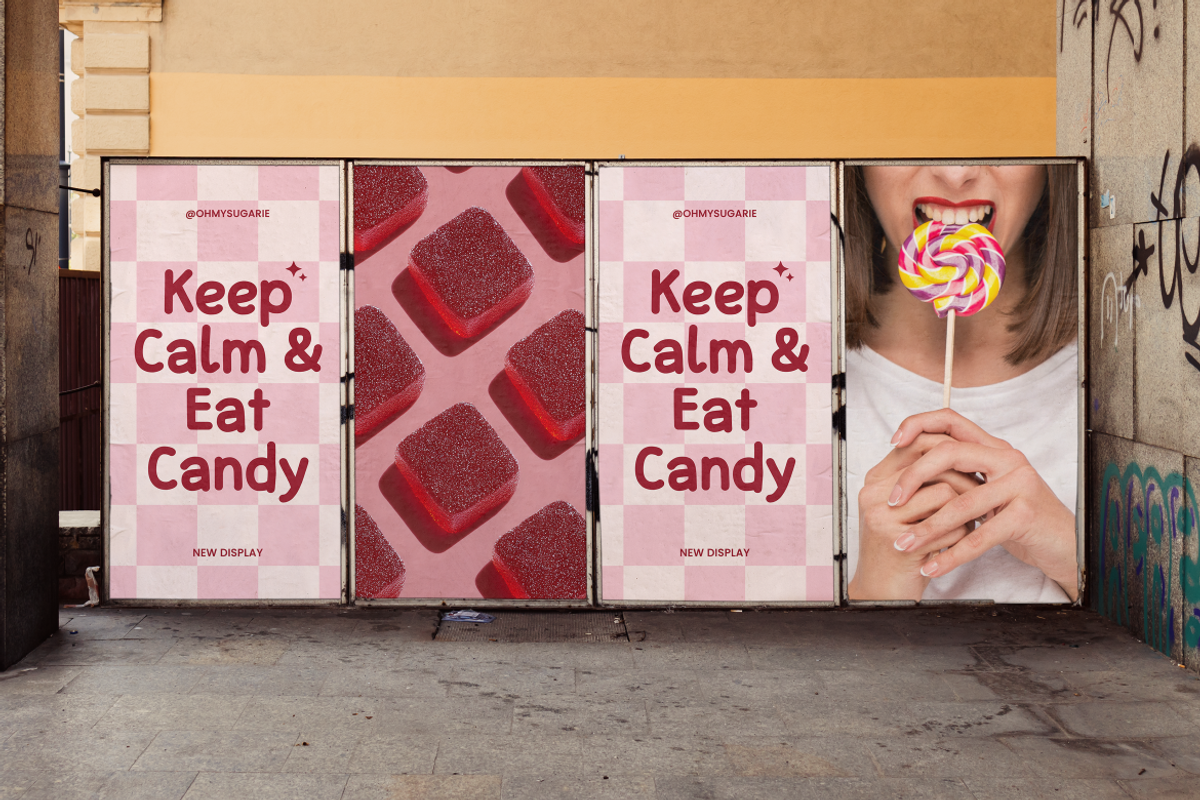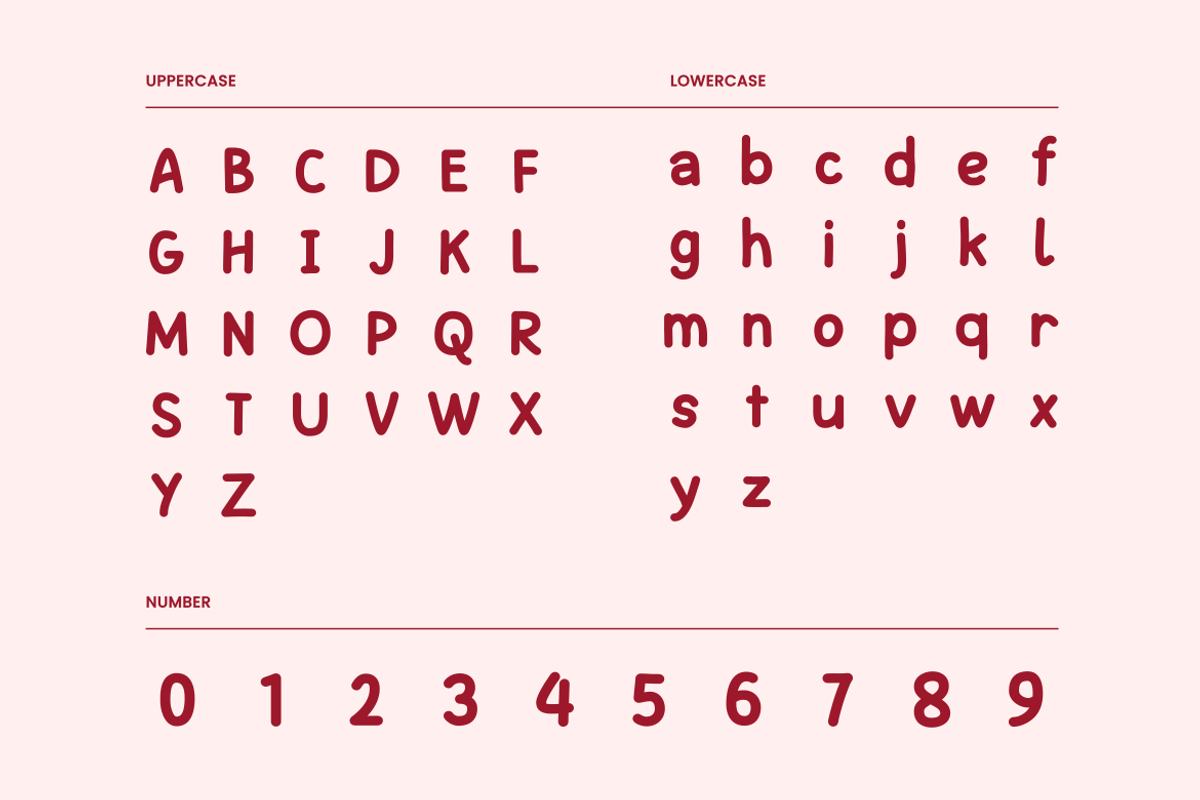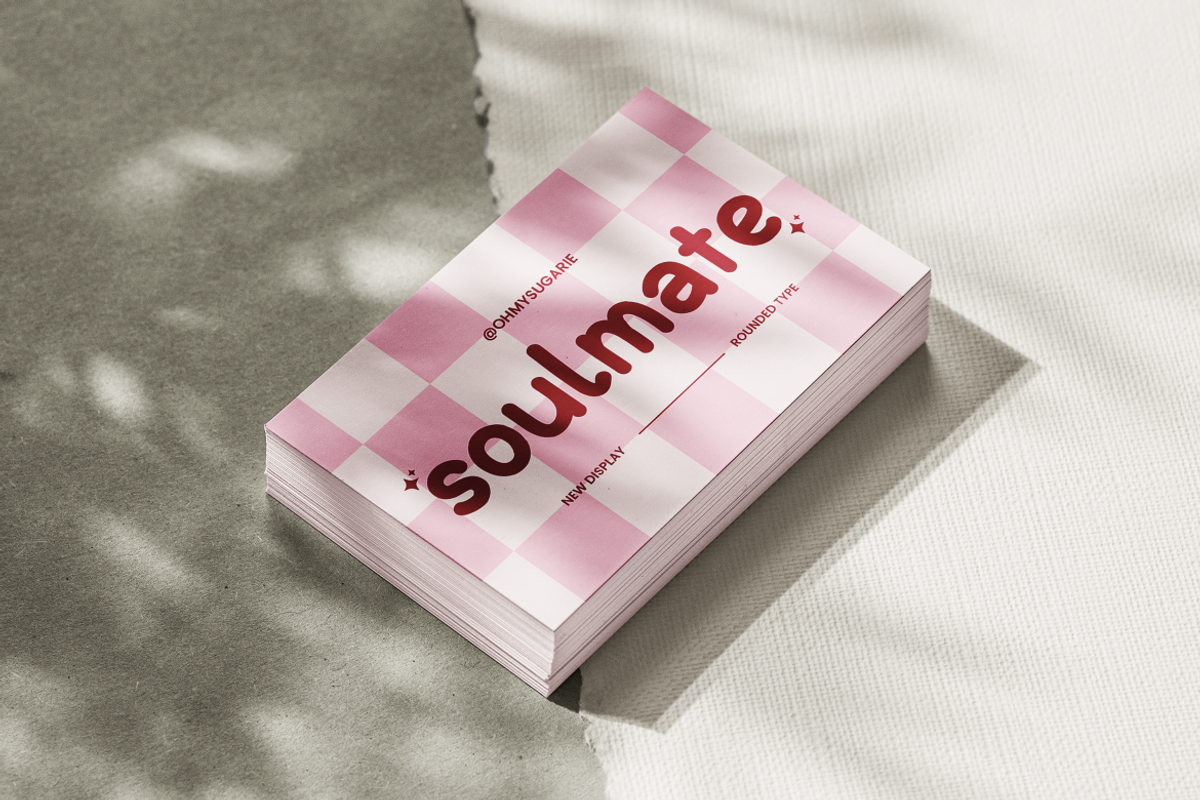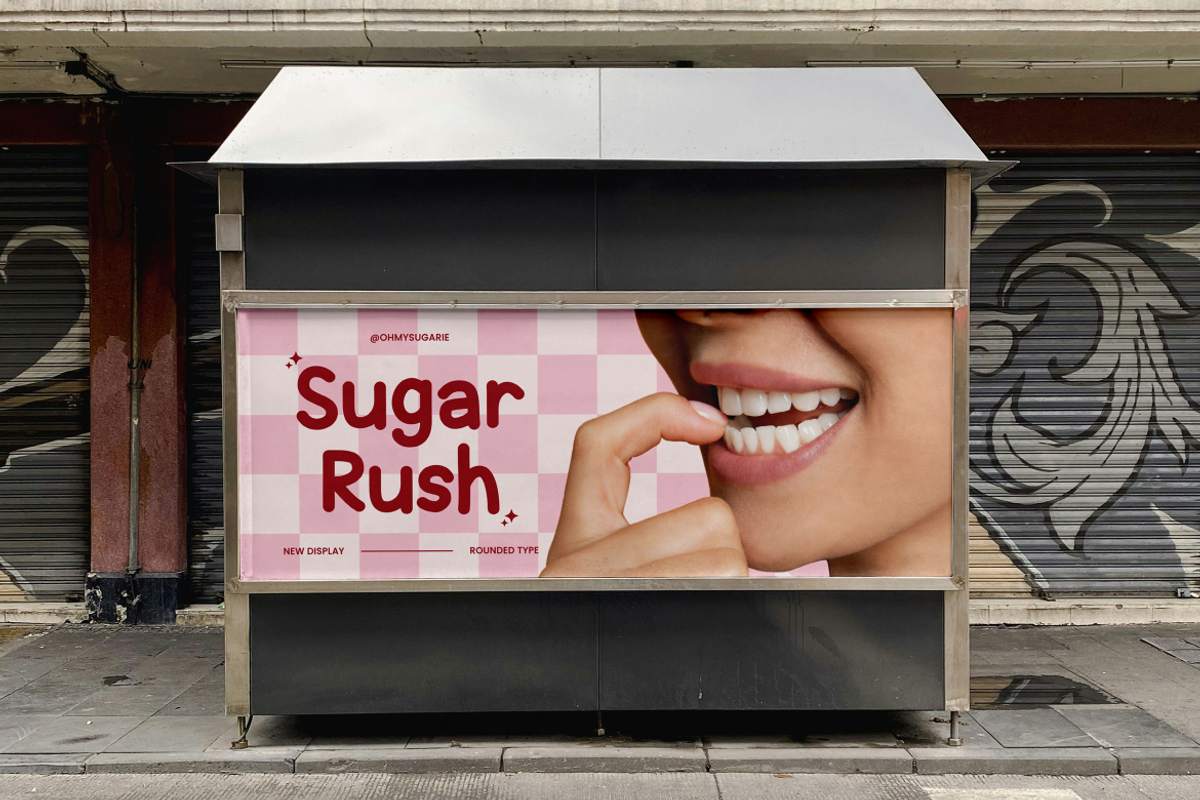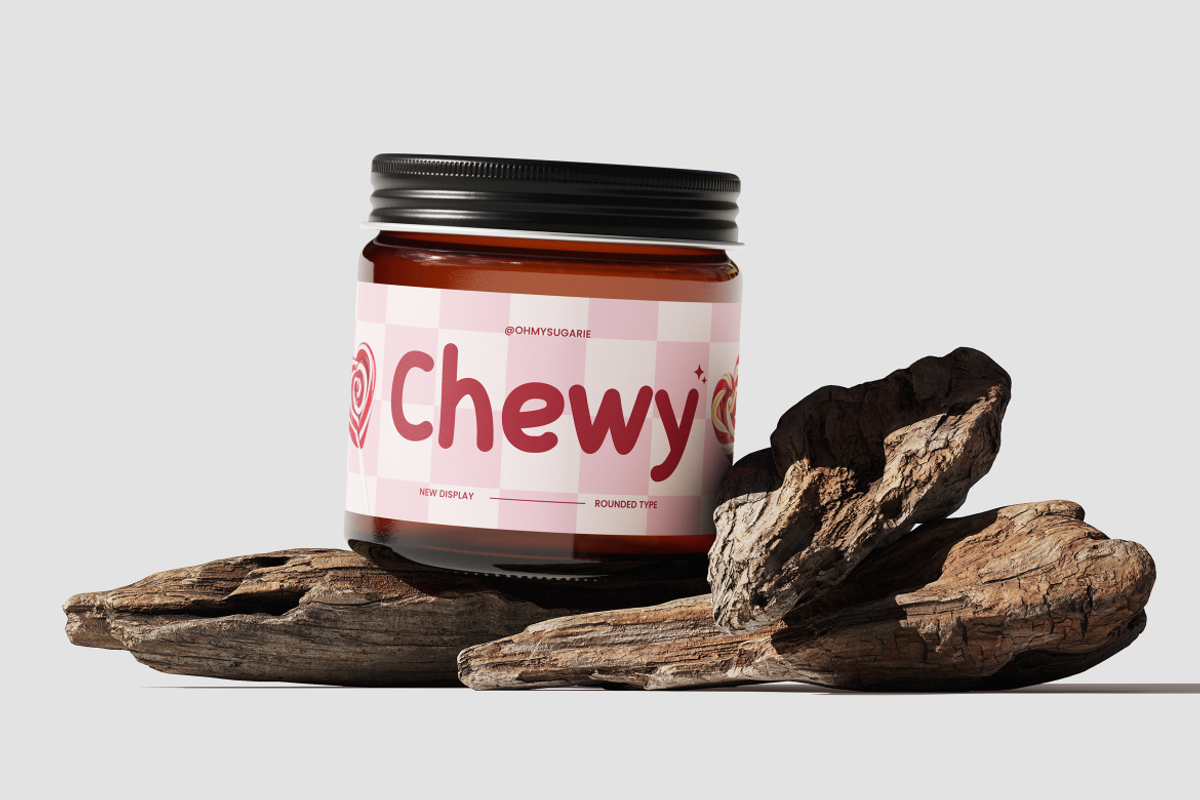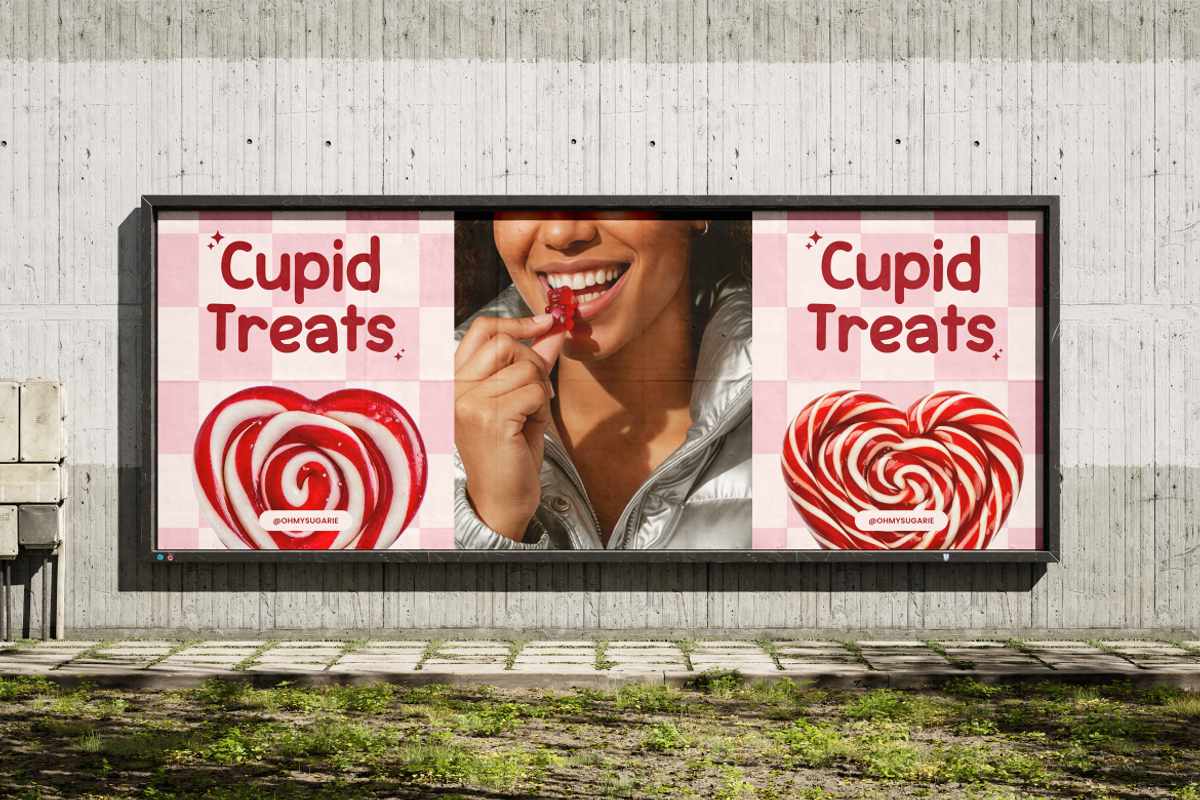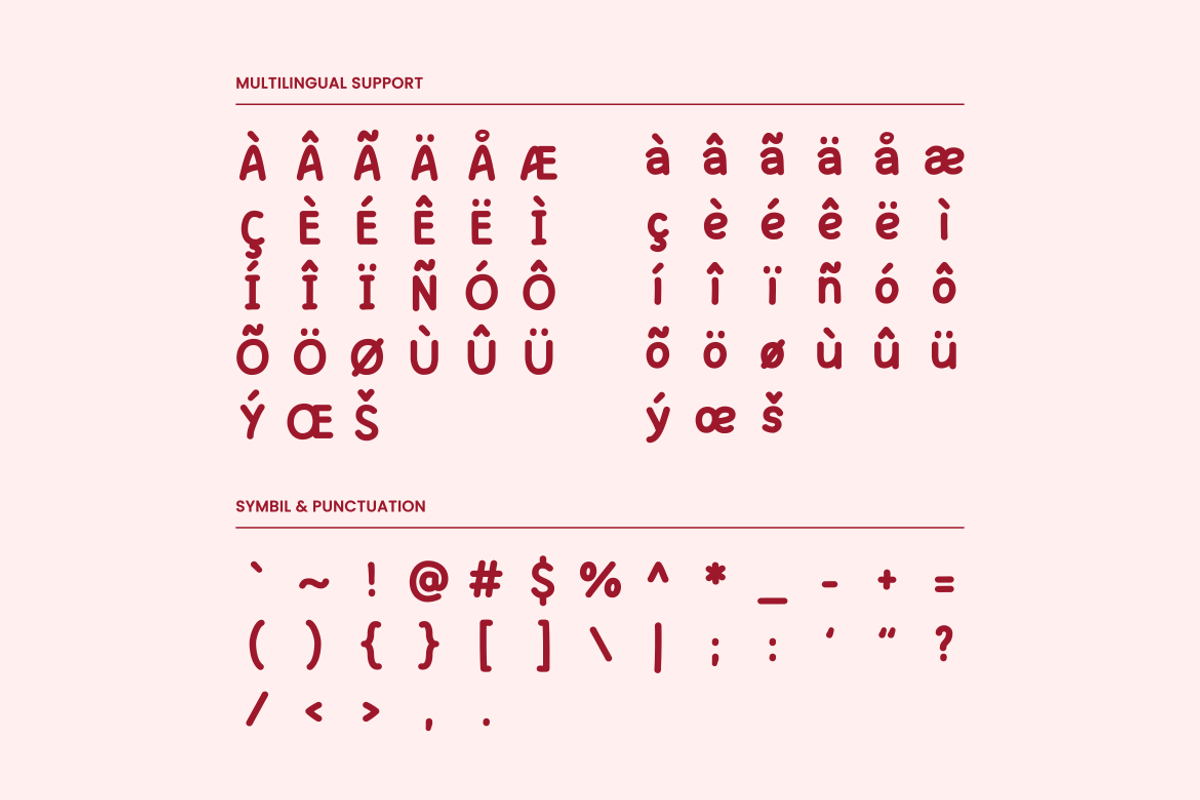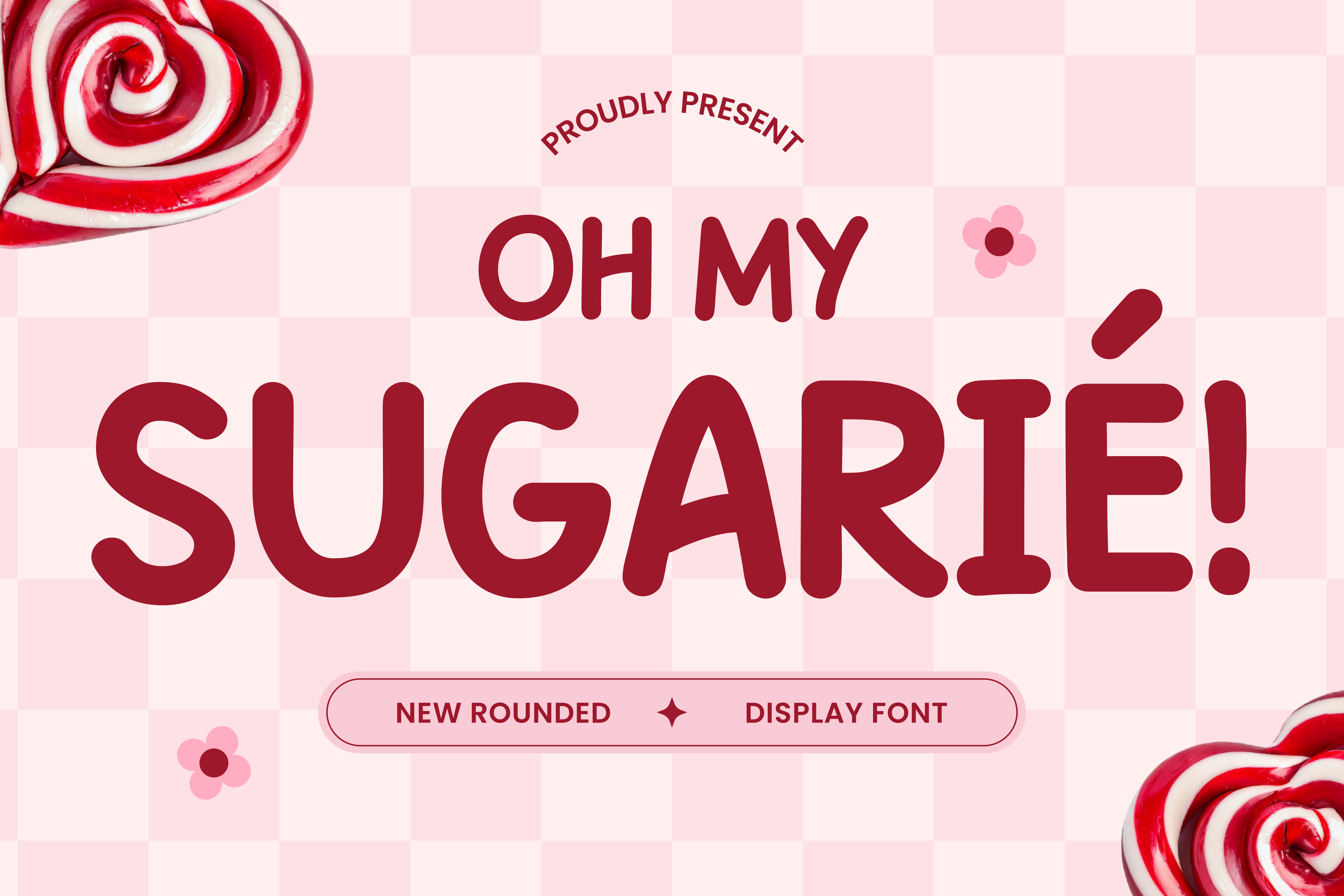
Oh My Sugarié – Fun Display Font
Oh My Sugarie is a fun display font designed to bring charm and personality to your creative projects. With its smooth curves and cheerful character, it is perfect for branding, packaging, children’s designs, posters, social media, and logos. Create eye-catching visuals effortlessly with this sweet, playful, and highly memorable typeface.